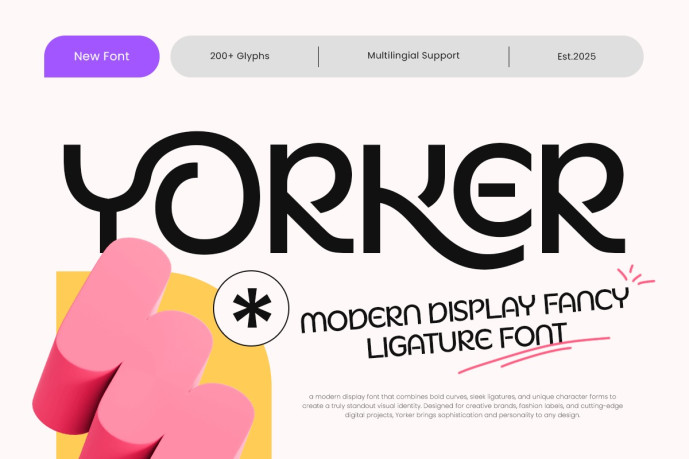
Yorker Font
Designer: SelarasWP
Yorker Font is a modern and elegant display font featuring graceful curves, sophisticated ligatures, and artistically detailed letterforms. Designed to bring a high-end and expressive aesthetic to your typography, Yorker is perfect for branding, fashion editorials, logo design, social media graphics, packaging, and creative headlines requiring a sophisticated visual touch.
Its unique ligatures and refined forms create a luxurious and memorable impression, making Yorker an excellent choice for designers looking to enhance their layouts with a display style that is both decorative and modern. The typeface combines contemporary elegance with a creative touch, making it a versatile font suitable for both minimalist and expressive designs.